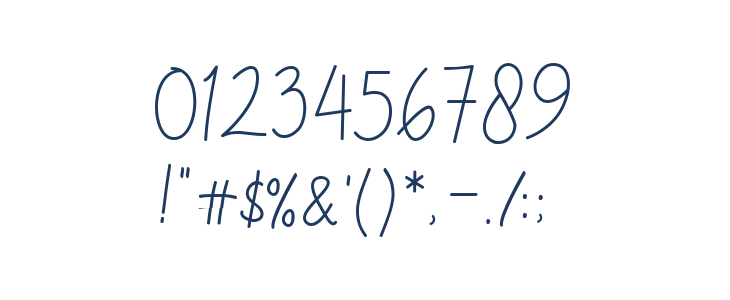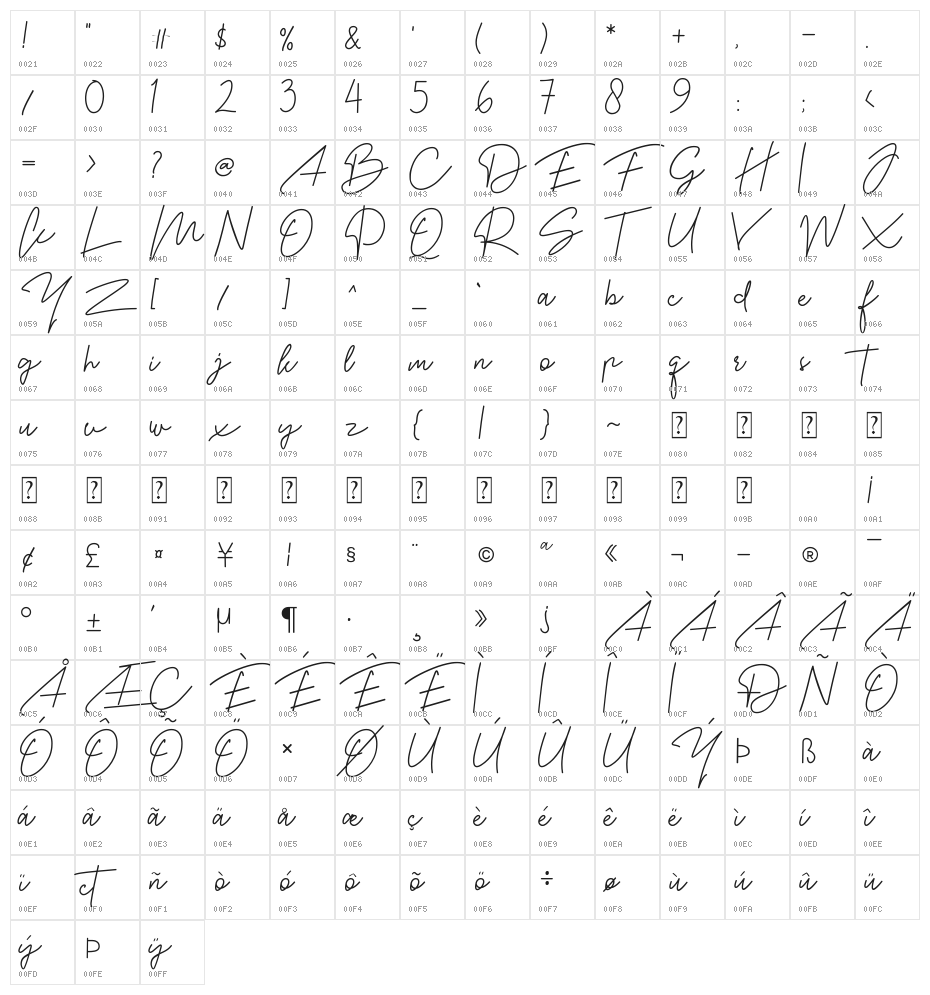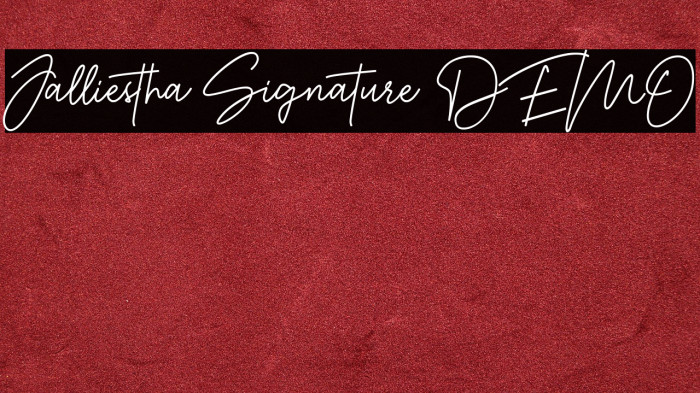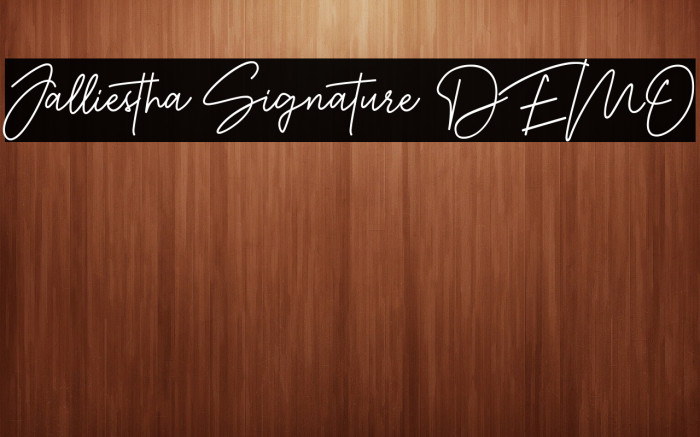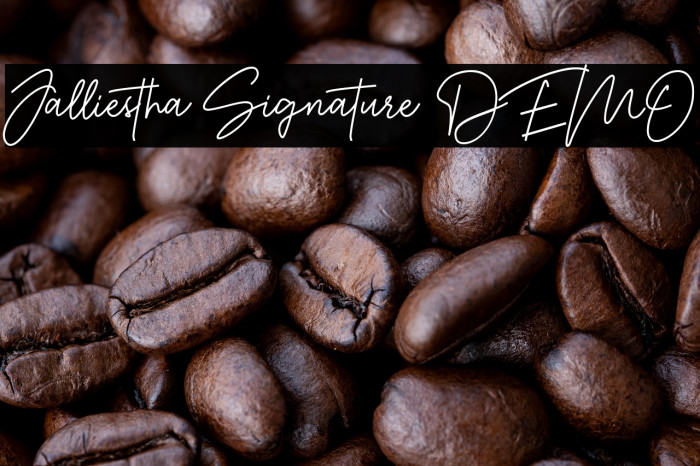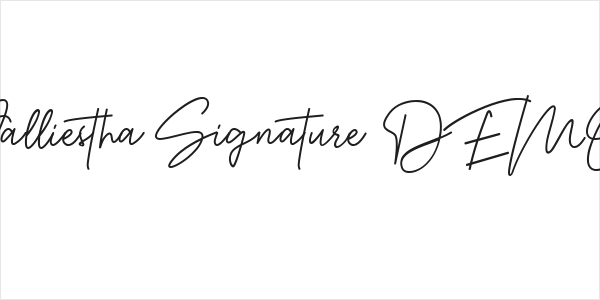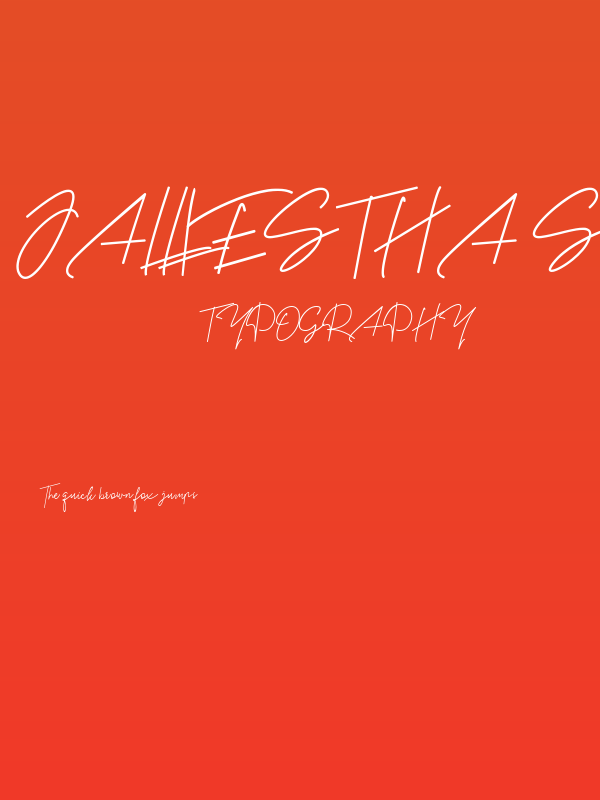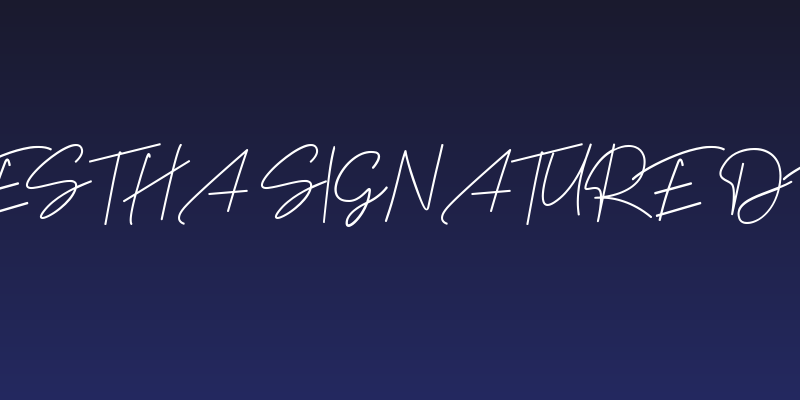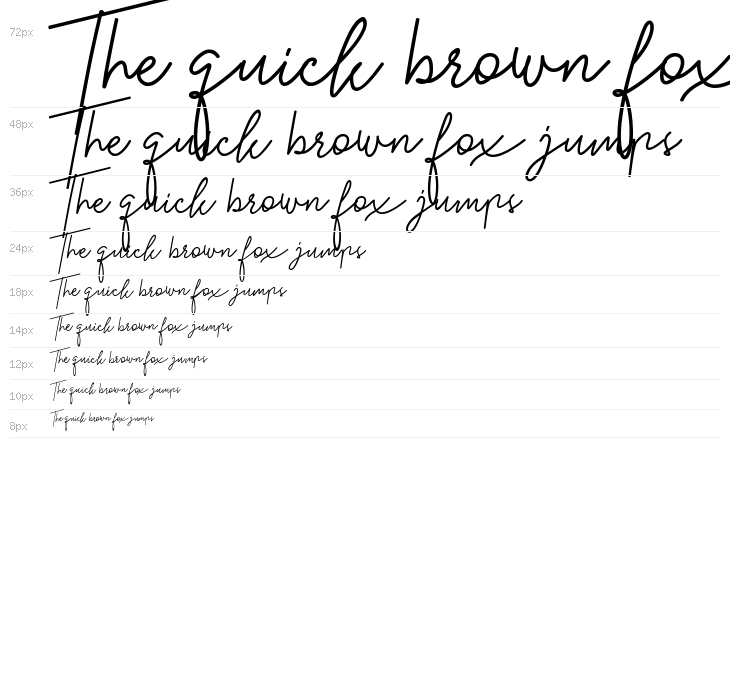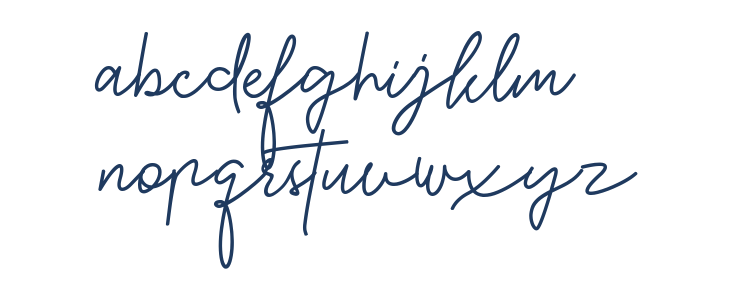
Jalliestha Signature DEMO Font
Jalliestha Signature DEMO Description
This font exudes a sophisticated and elegant handwritten style, characterized by its fluid and continuous strokes. The uppercase letters are tall and slender, with a slight slant that adds a dynamic feel. The lowercase letters are more rounded and connected, creating a seamless flow that mimics natural handwriting. The numerals are consistent with the overall style, maintaining the same fluidity and elegance. Special characters are thoughtfully designed to match the aesthetic, making this font versatile for various uses. Its overall appearance is both modern and timeless, suitable for adding a personal touch to any project.
| Use Case | Logos, Invitations, Personal branding |
| Proposed Projects | Ideal for wedding invitations, personal branding, logos, and elegant stationery. |